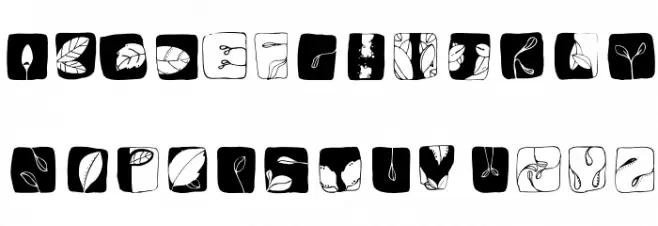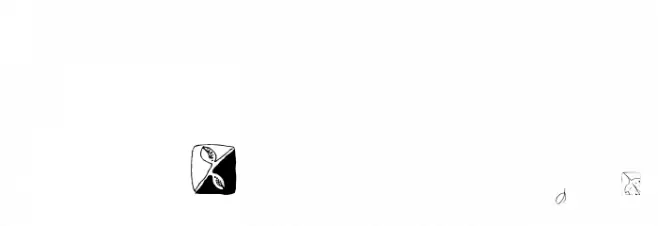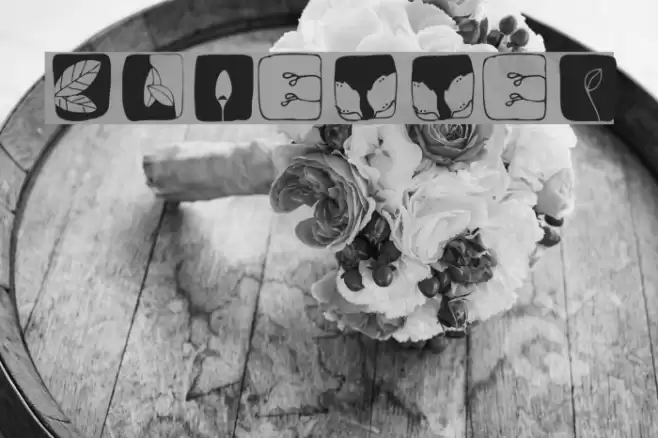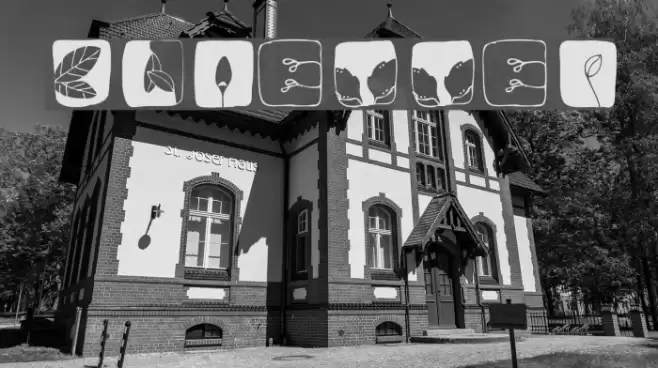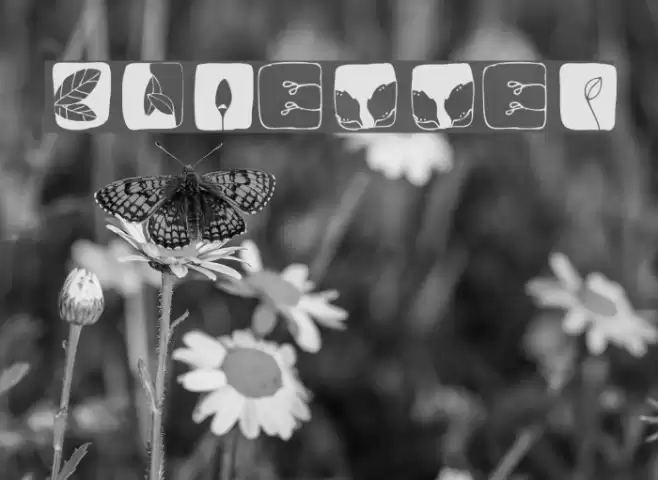
blaetter Font
blaetter Description
This decorative font features a unique design where each character is embedded within a square, resembling leaves and natural elements. The characters are stylized with intricate leaf patterns, creating a harmonious blend of nature and typography. The use of black and white contrast enhances the visibility of the leaf motifs, making each letter stand out distinctly. The font's playful and organic aesthetic makes it suitable for projects that aim to evoke a sense of nature, growth, or environmental themes. The overall design is both artistic and functional, providing a visually appealing option for creative projects.
A decorative font with leaf motifs embedded in square blocks, offering a nature-inspired aesthetic.
- Proposed Projects: Ideal for eco-friendly branding, nature-themed posters, environmental campaigns, and artistic projects.
- Use Case: Logos, Posters, Artistic Designs